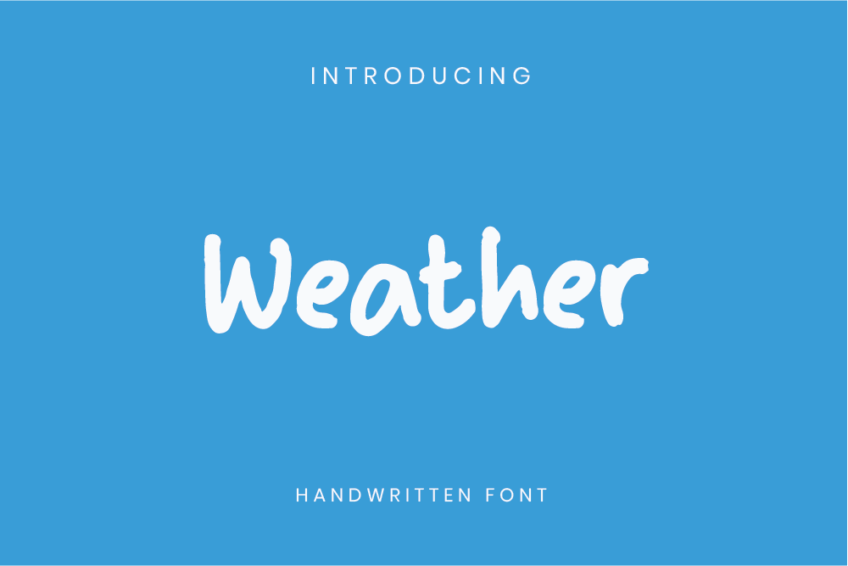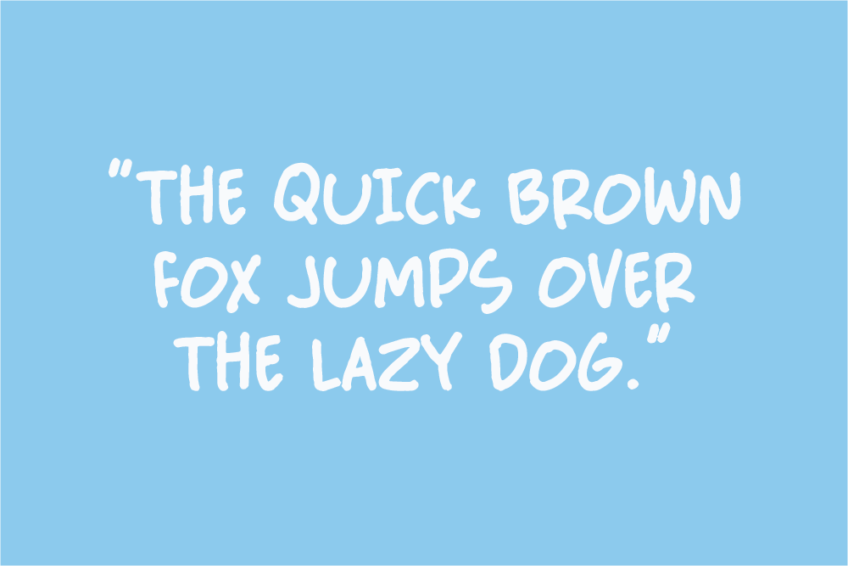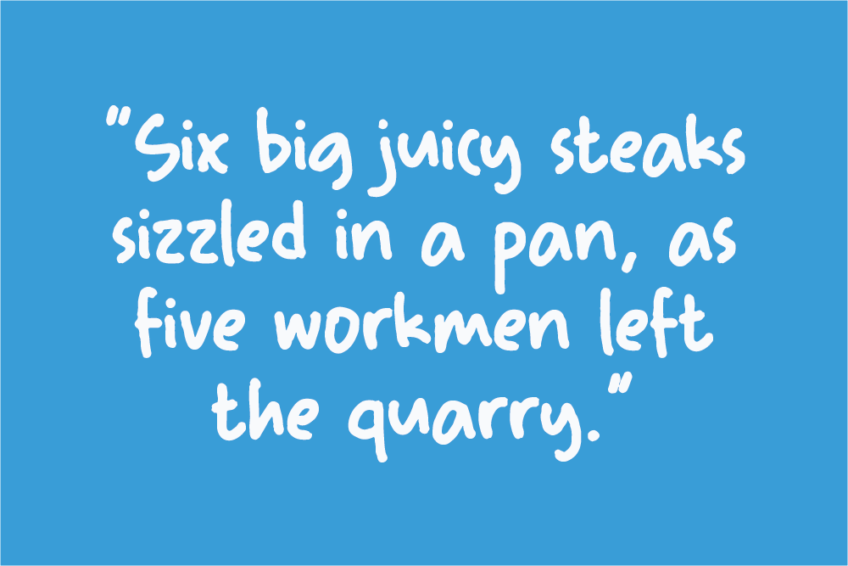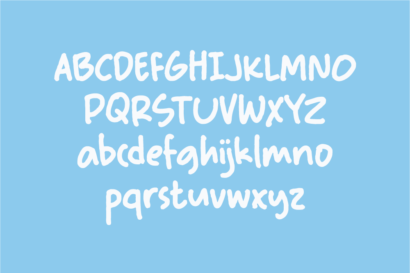
Explore the energy of Weather Handwritten Font, a handwriting font free that brings a sense of liveliness to your creative projects. This free font combines playful strokes with a unique character, making it an excellent choice for those seeking expressive and dynamic handwriting. Download Weather for free and infuse your designs with the excitement of bold and free-spirited typography.
Perfect for social media graphics, personal projects, or any design that requires a touch of enthusiasm, Weather Handwritten Font offers versatility and flair. Let your creativity shine with this captivating font that adds a burst of excitement to your text.